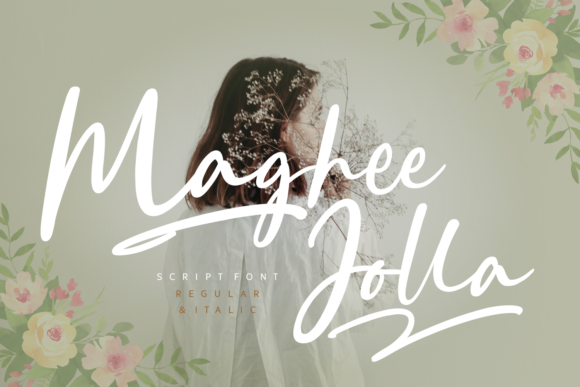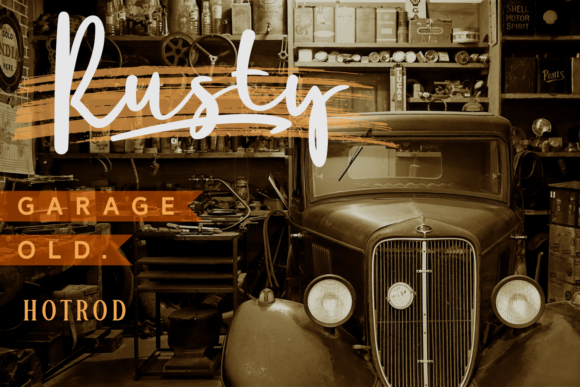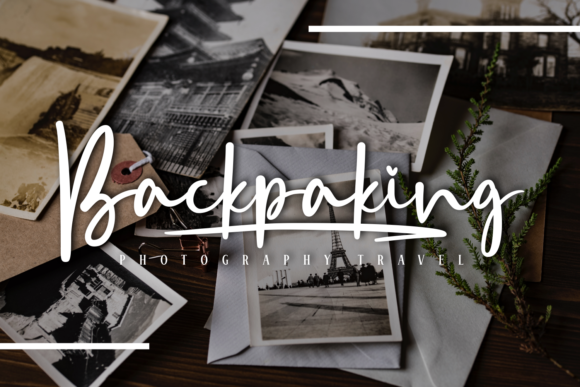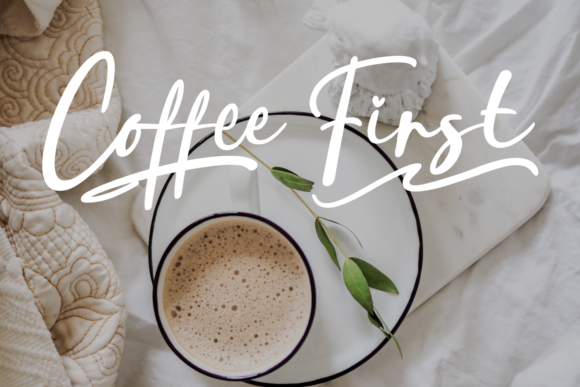
Maghee Jolla Font
About Maghee Jolla Font
Maghee Jolla is light and casual script featuring authentic swashes. It will add a unique charm to any design project.